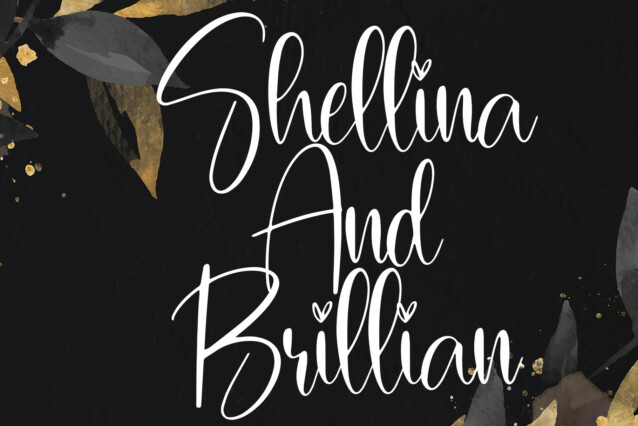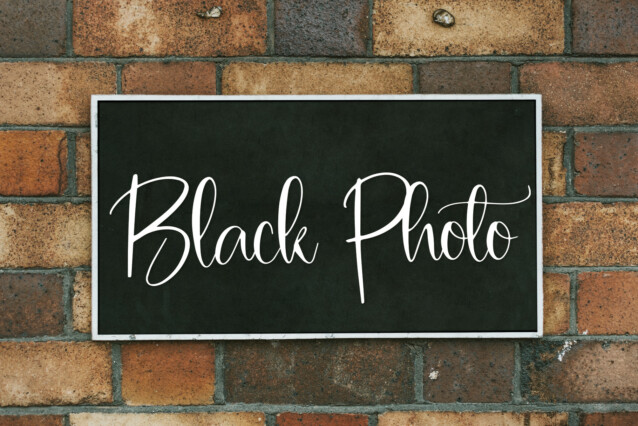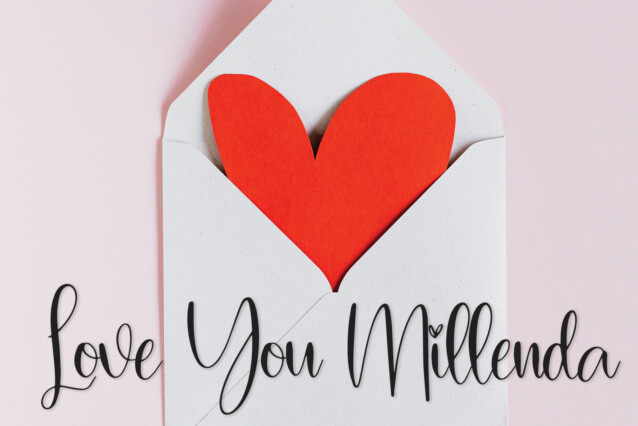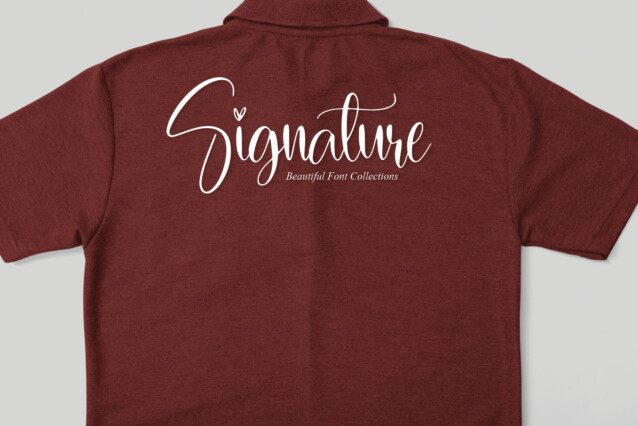
Spring Handmade Font
Spring Handmade Font is a beautiful and creative handwritten typeface. Its latest style letters are perfect for wall displays, wedding invitations, social media post logos, advertisements, product packaging, product designs, labels, photography, watermarks, invitations, stationery, and any project that requires taste handwriting.